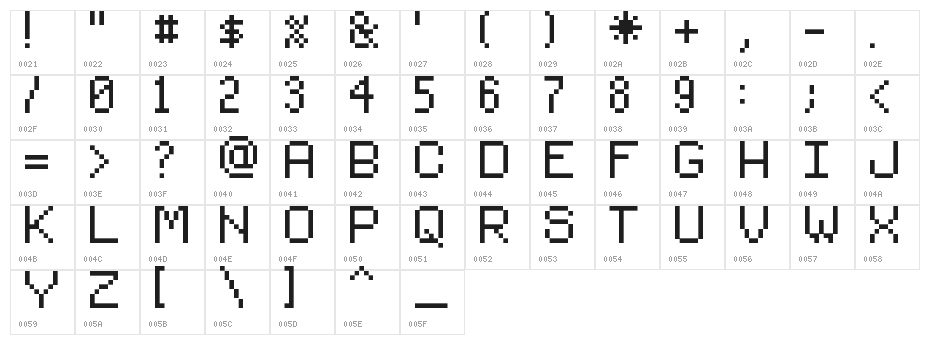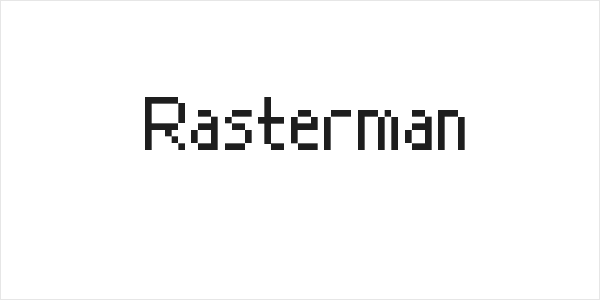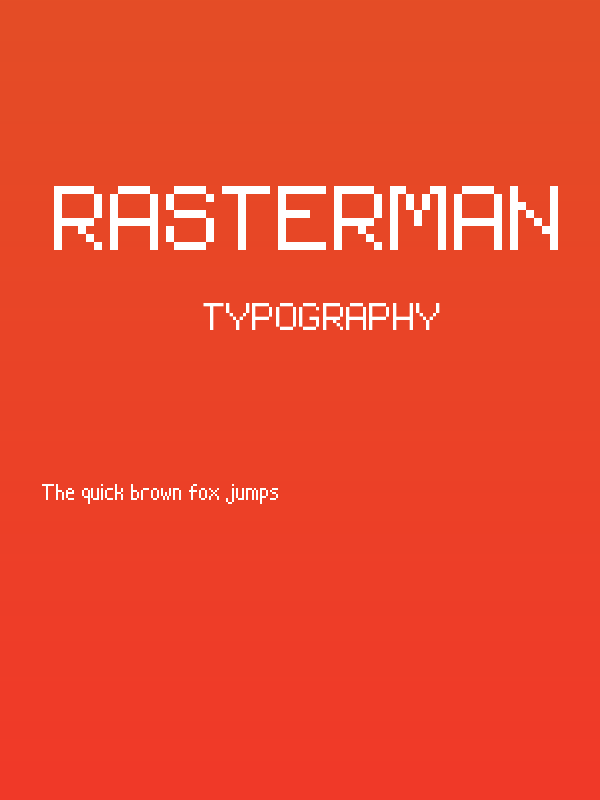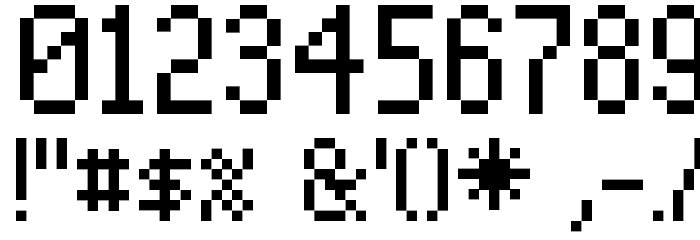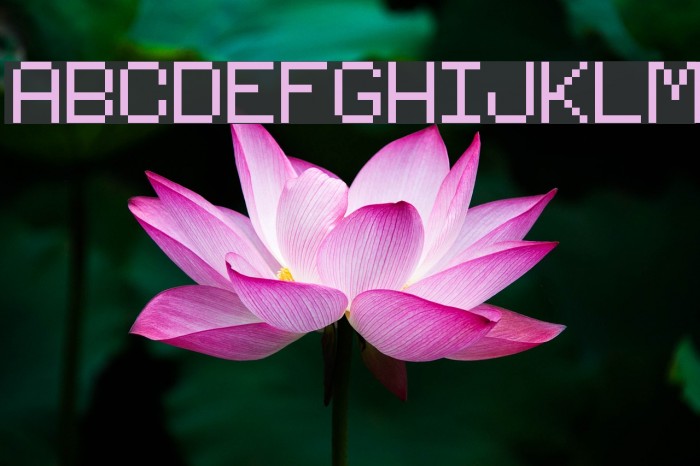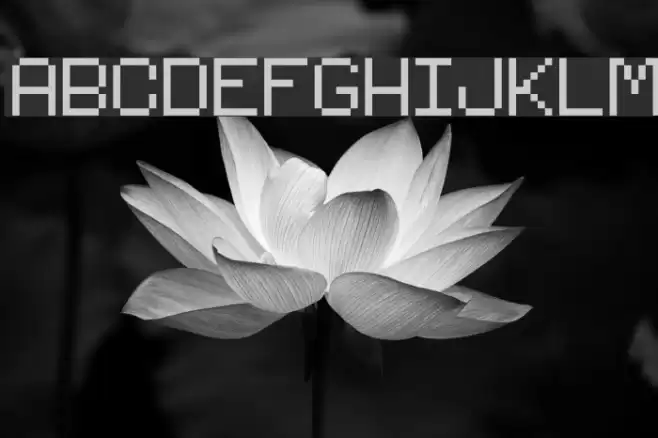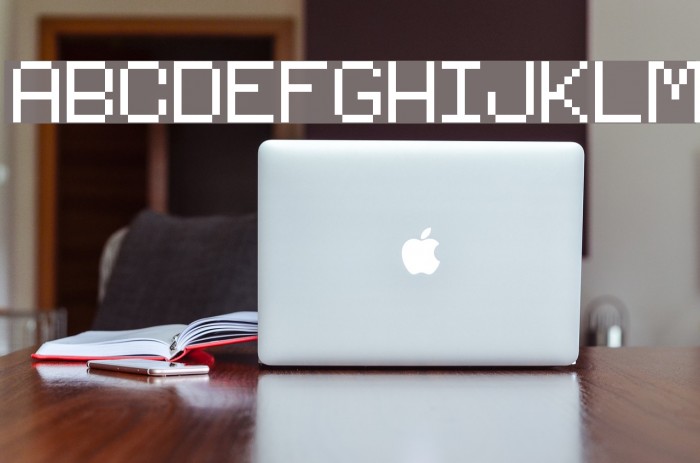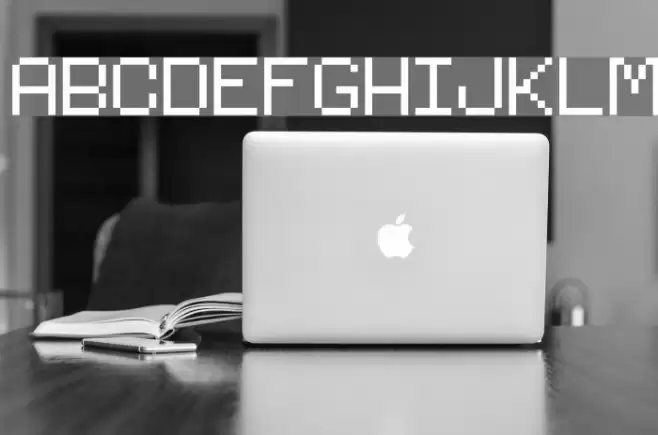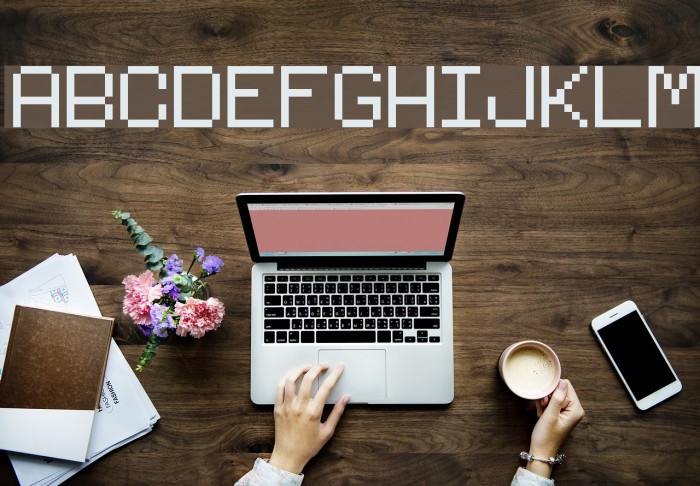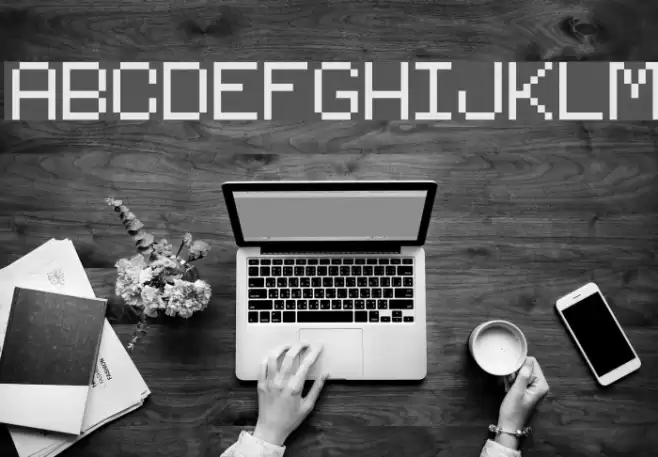
Rasterman Font
Rasterman Description
This font features a pixelated, blocky design reminiscent of early digital displays and video games. Each character is constructed with a grid-like precision, giving it a distinctly retro, 8-bit aesthetic. The uppercase and lowercase letters maintain a consistent height, contributing to a uniform appearance. The numerals and special characters follow the same pixelated style, ensuring visual coherence across all elements. This font's simplicity and geometric form make it highly legible, even at smaller sizes, while its nostalgic charm adds a playful touch to any design.
| Overall Style | Vintage |
| Use Case | Logos, Headlines, Digital Art |
| Proposed Projects | Ideal for retro video game designs, digital art projects, and any creative work seeking a nostalgic, pixelated look. |